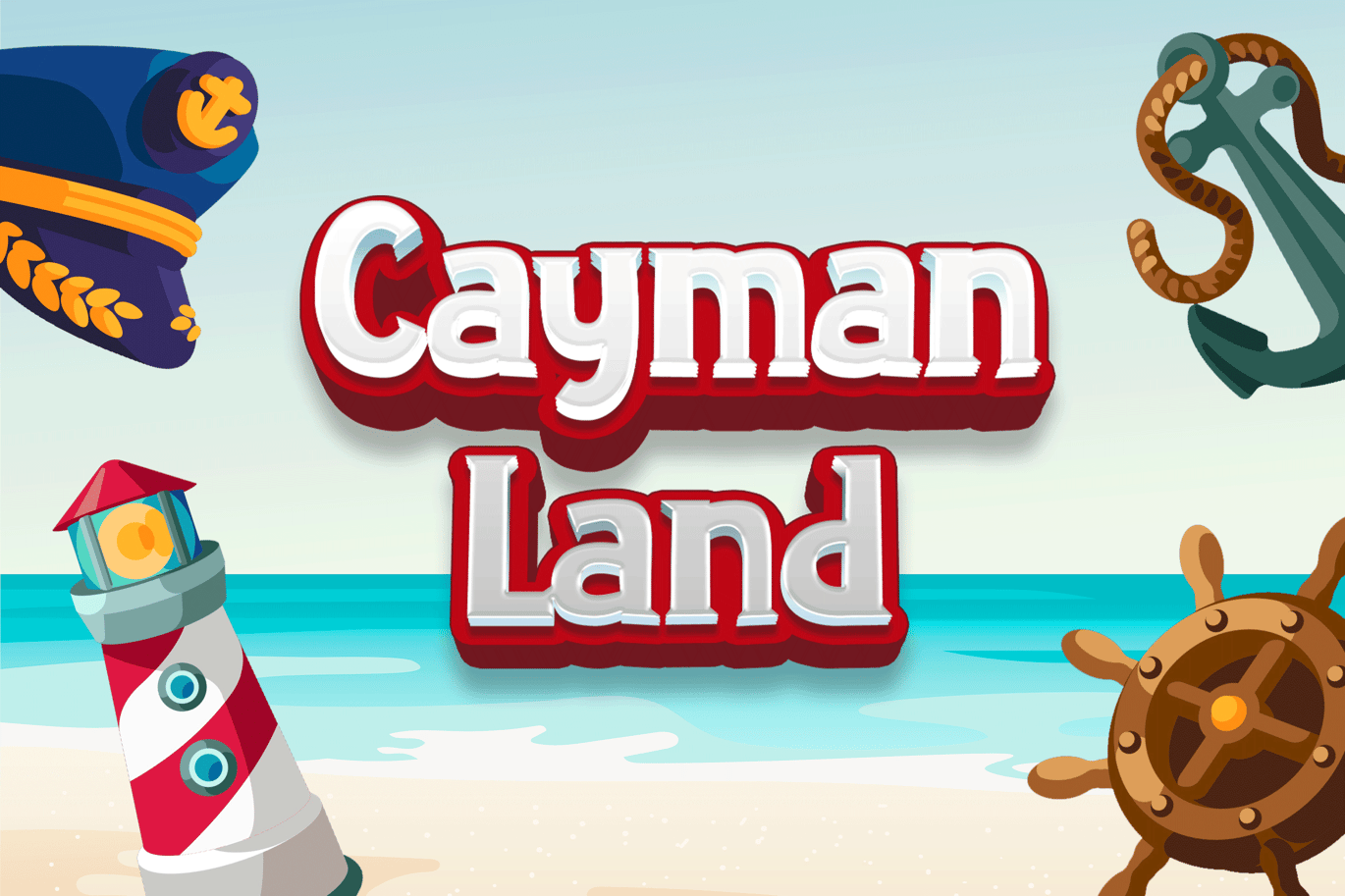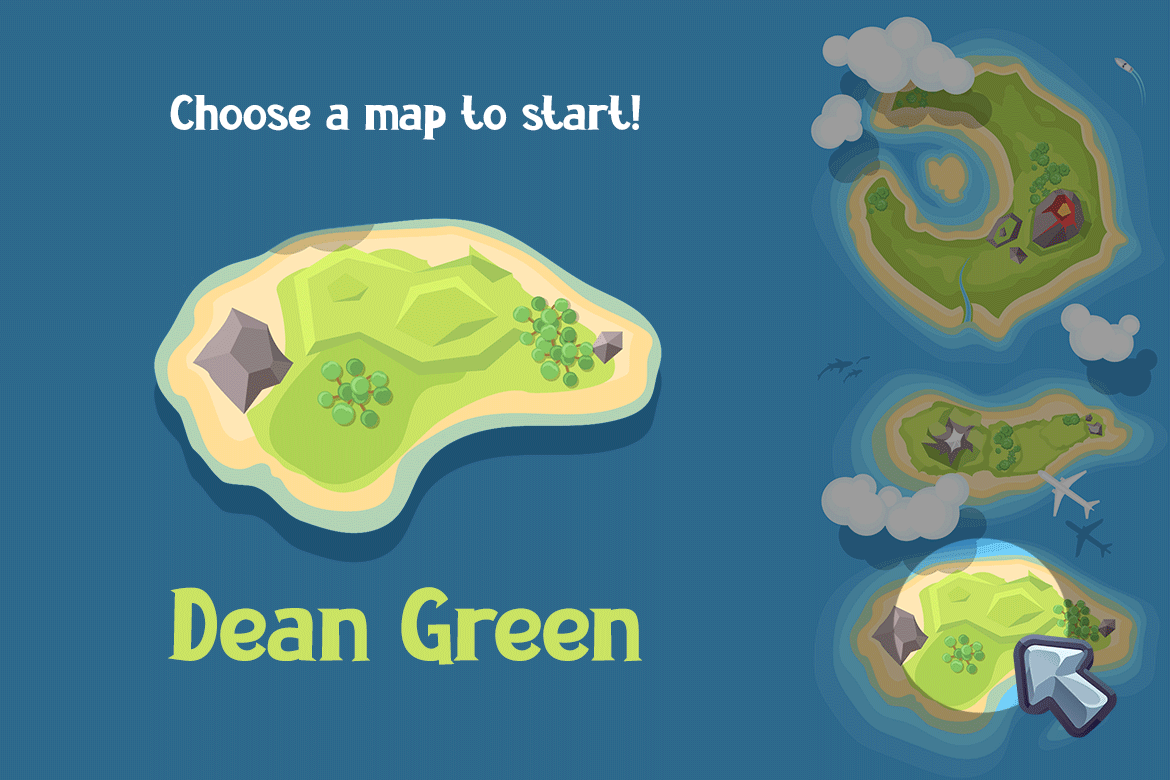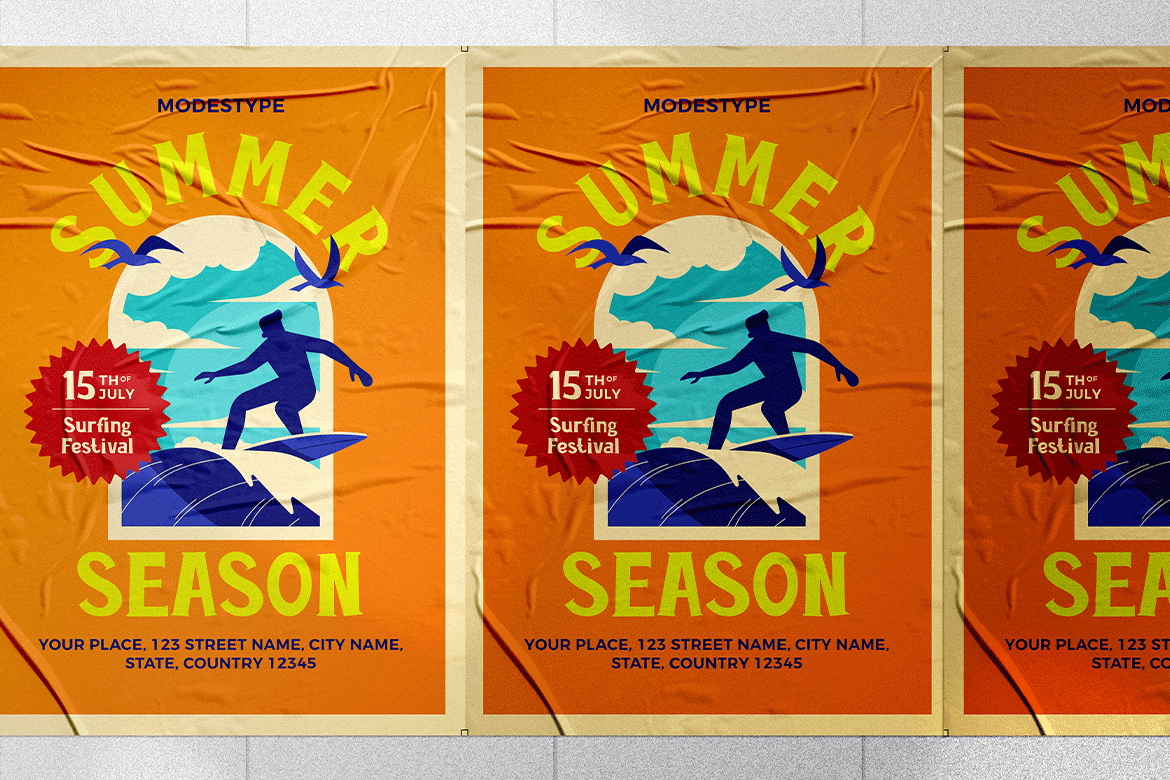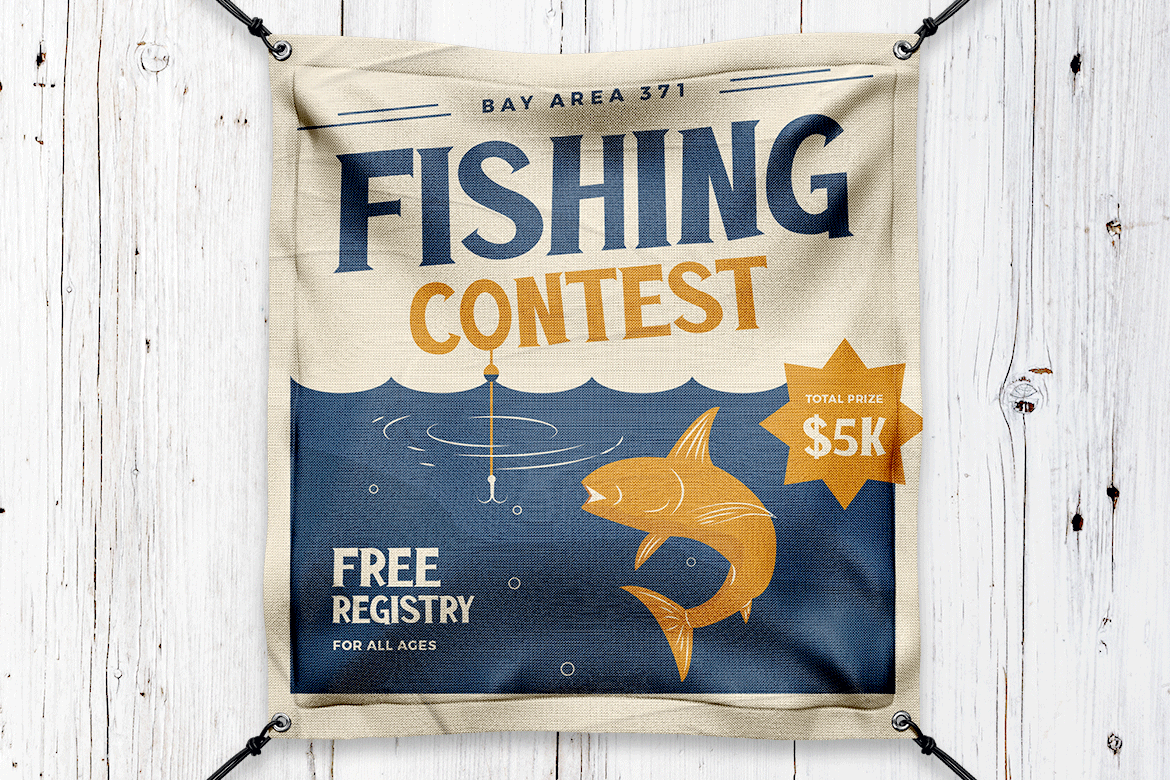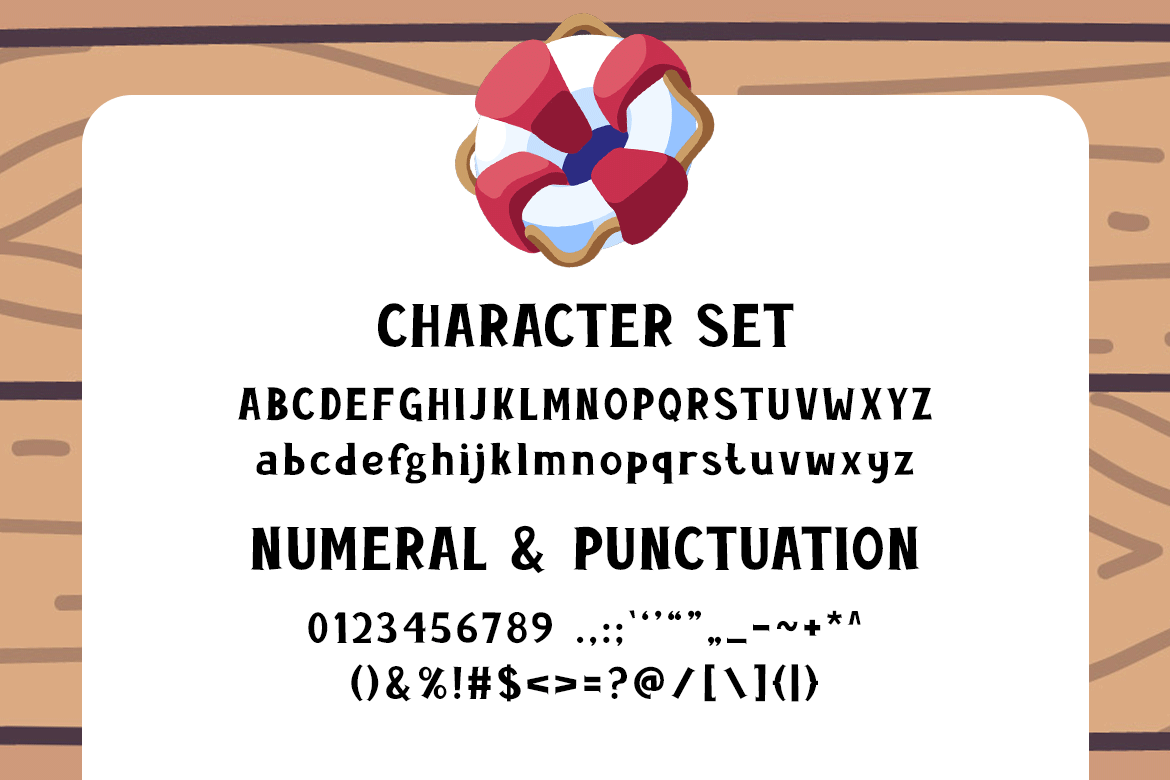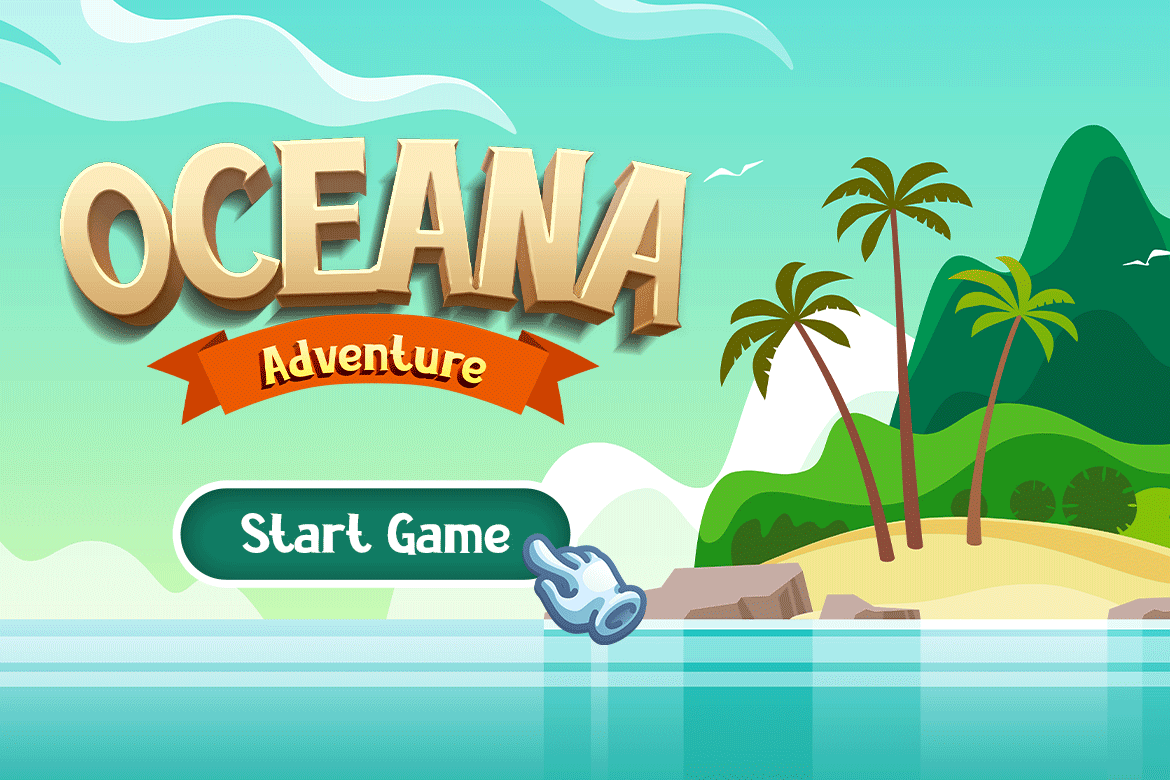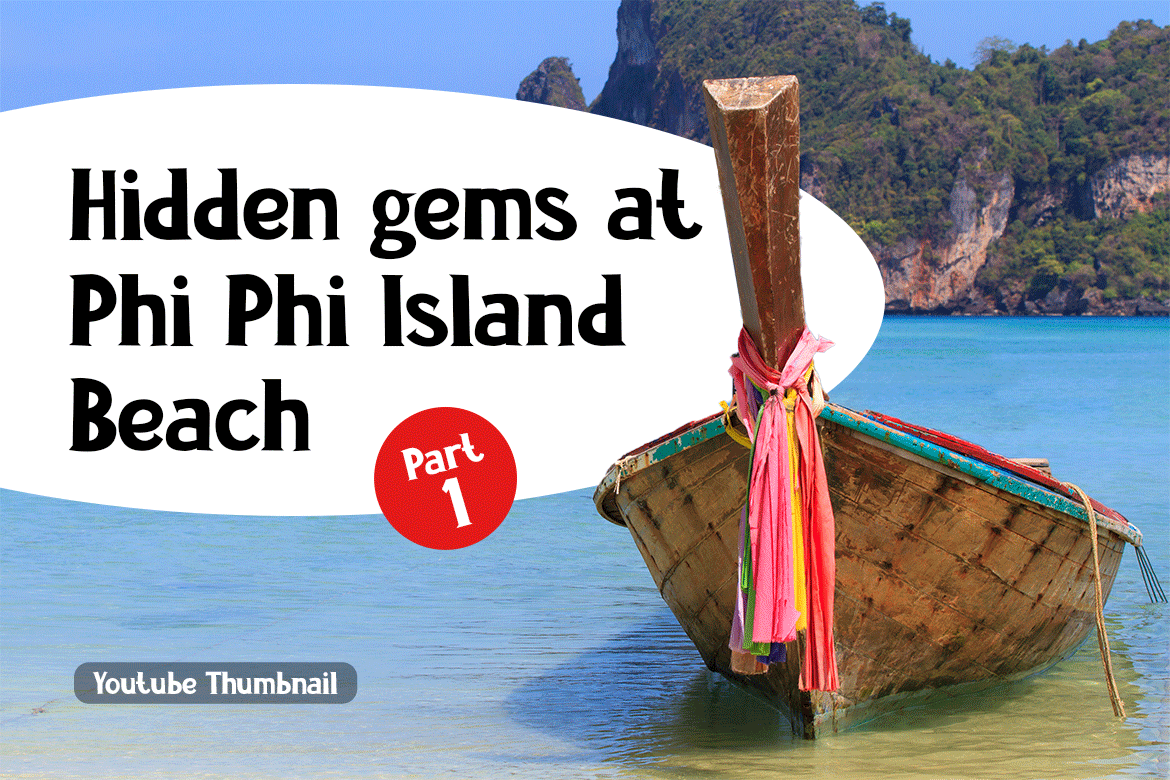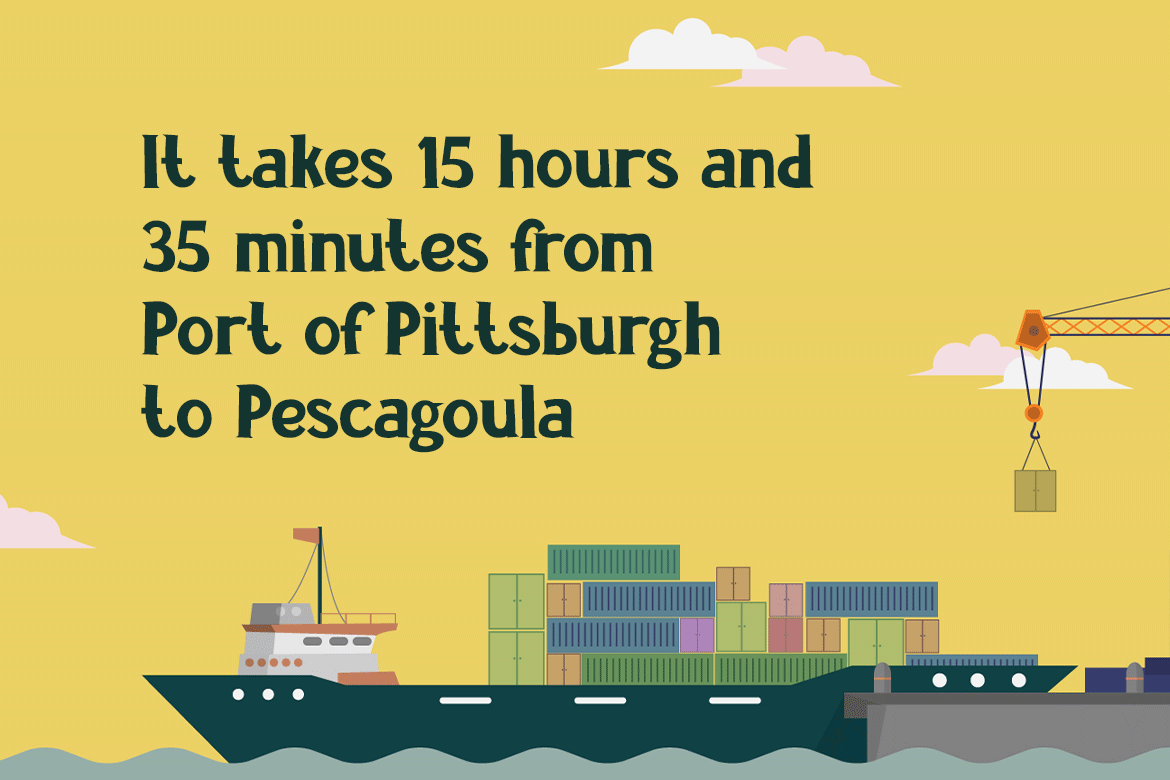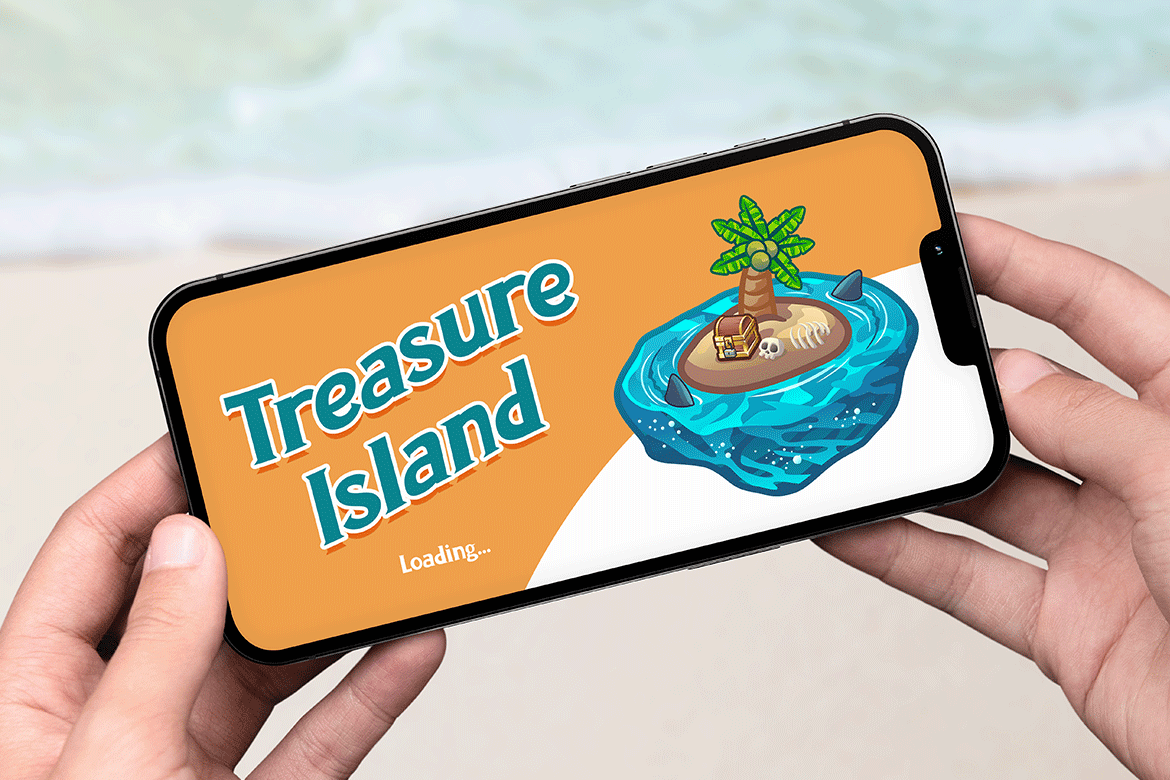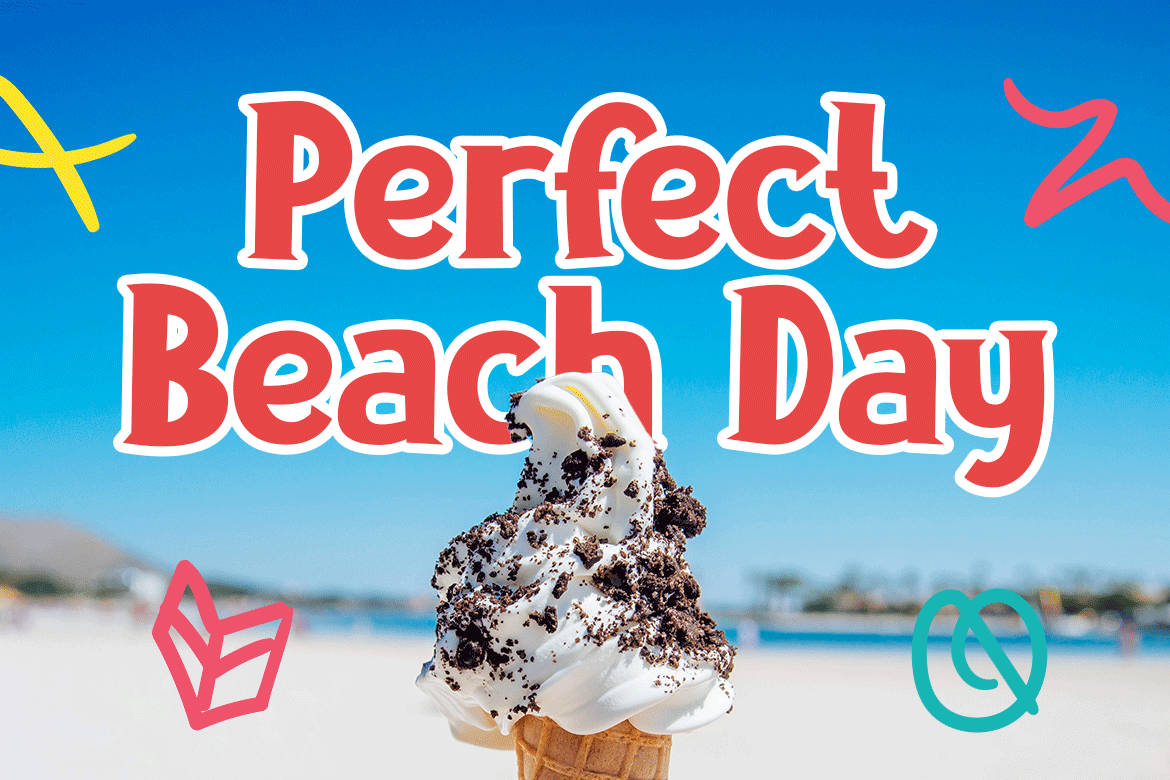
Cayman Land – Gaming Font
Fresh air and a soft breeze will flow through the project when Cayman Land being used.
Suit perfect for nature adventures books market, online games, teens event posters, school supplies font, posters, movie titles, youtube covers, youtube thumbnails, social media page covers, and so on…